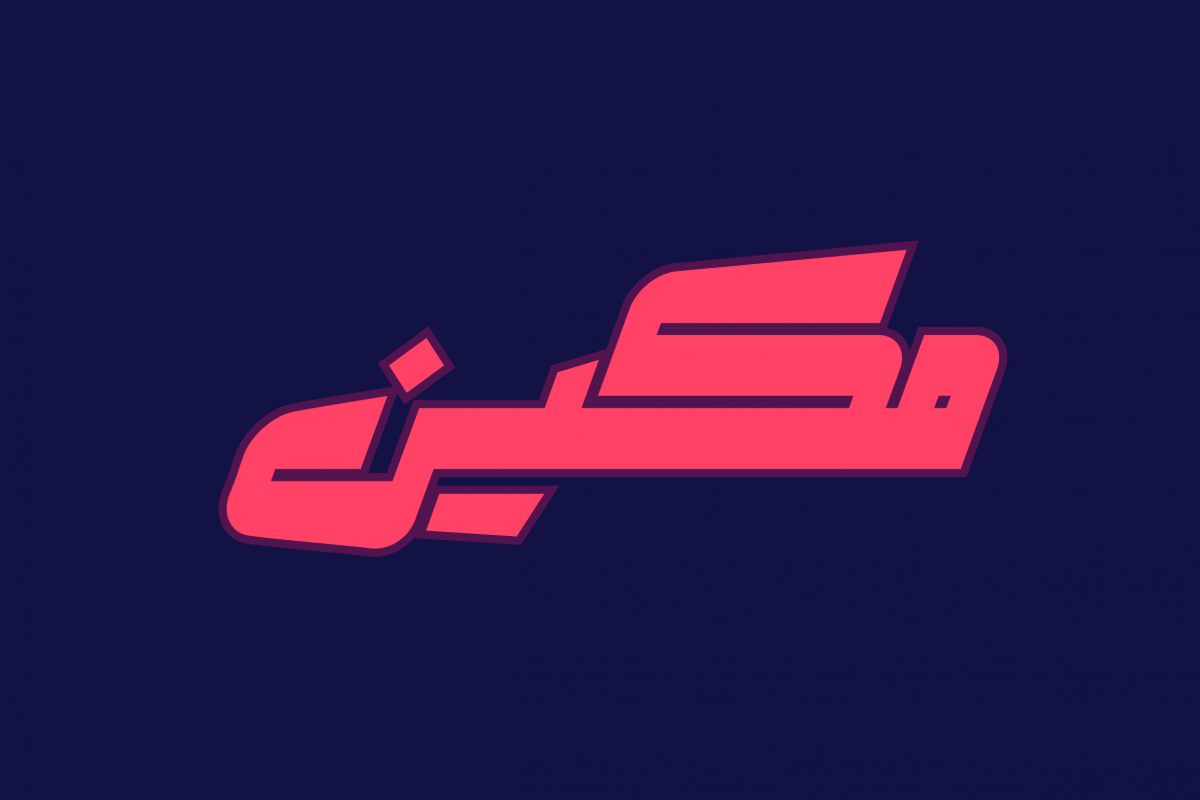
Makeen - Arabic Font
Makeen is an Arabic display font that suits various range of applications including, web, advertising, publication and print. The font family consists of three styles namely; Regular, Slant and Joined-Dots.